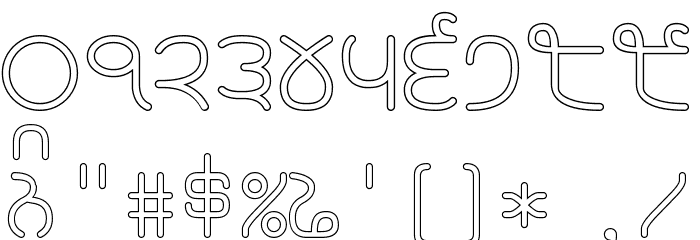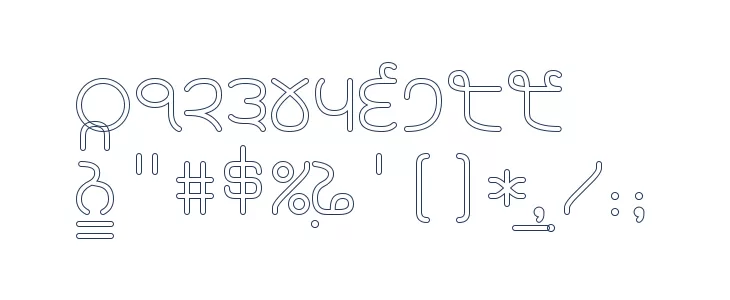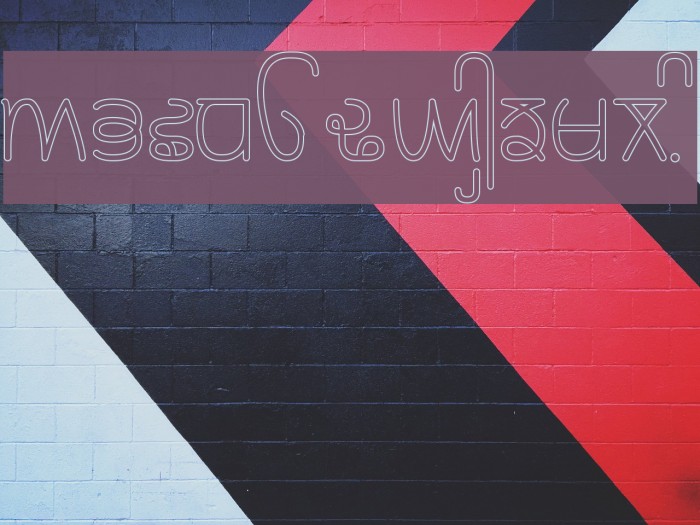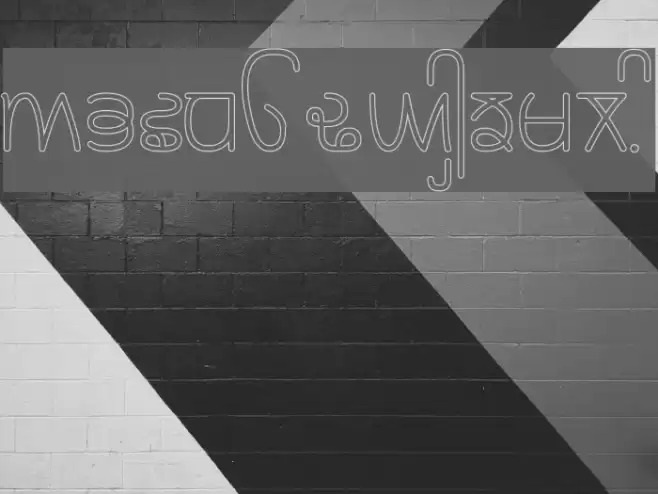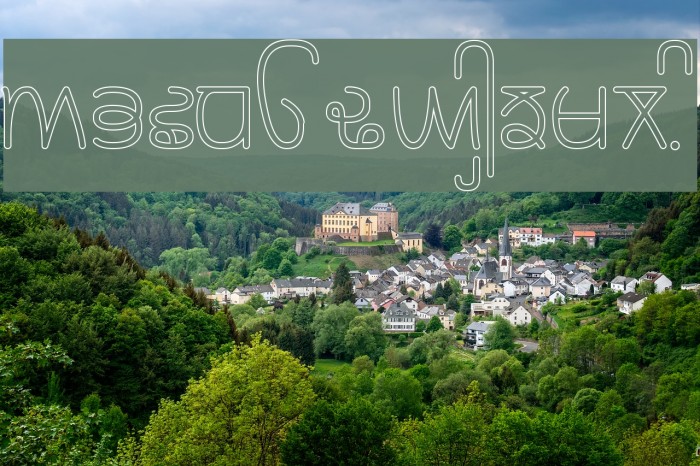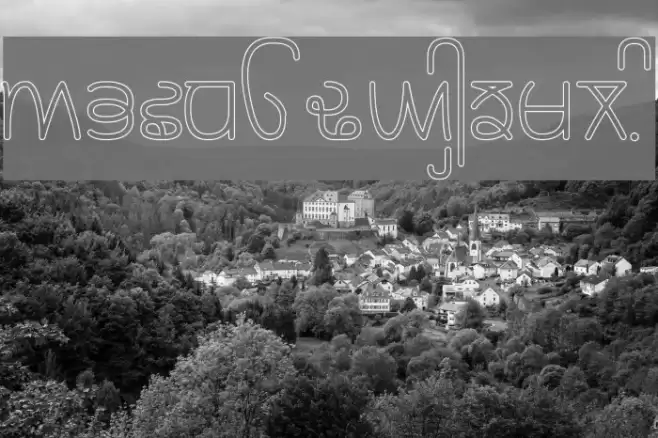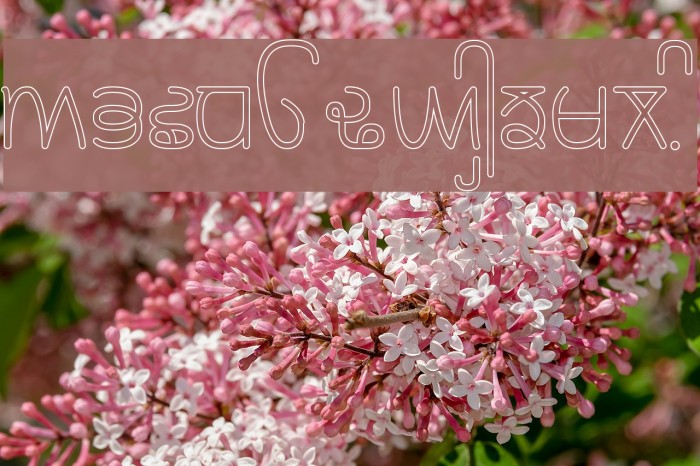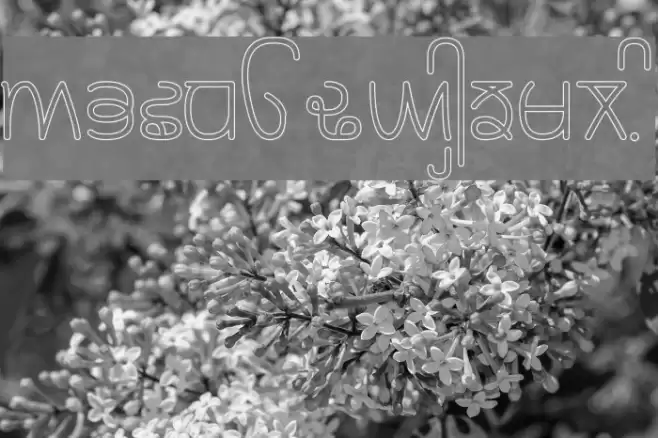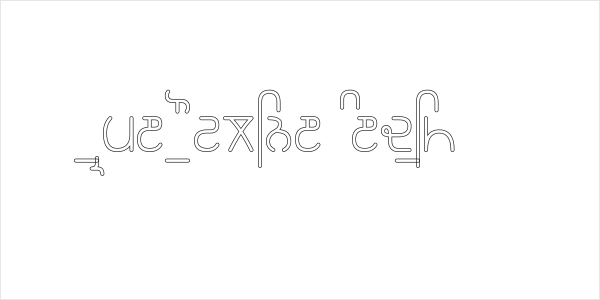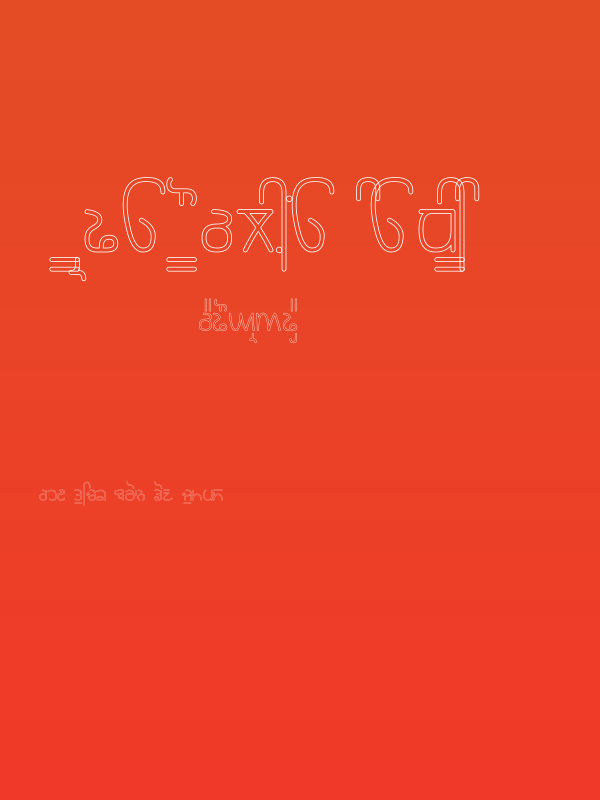
Rupe Outline Medium Font
Rupe Outline Medium Description
This font features a unique outline style with a medium weight, creating an airy and open appearance. The characters are formed with continuous, smooth lines that give a modern and futuristic feel. The font maintains a consistent stroke width throughout, emphasizing its geometric and structured design. Its distinctiveness lies in the playful curves and loops, which add a touch of whimsy while retaining readability. The overall design is clean and minimalistic, making it suitable for creative and artistic projects.
Use CaseLogos, Posters, Artistic projects
Proposed ProjectsIdeal for branding, posters, digital art, and any project requiring a modern, artistic touch.